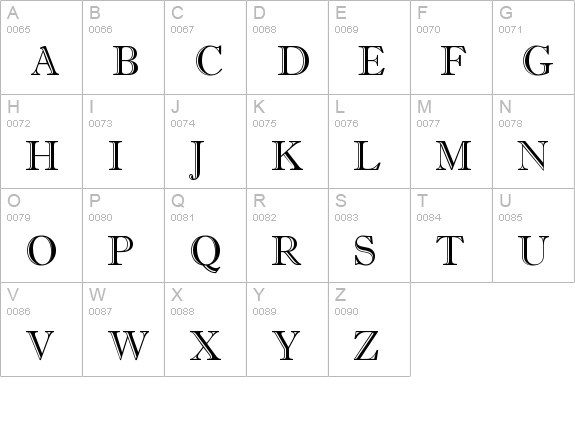
FFX Times Engraved Font Details
FFX Times Engraved font is a classic and elegant typeface that adds a touch of sophistication to any design project. With its intricate details and timeless appeal, this font is perfect for creating stunning headlines, invitations, and logos. The engraved style gives a sense of tradition and craftsmanship, making it suitable for projects that require a touch of vintage charm. What's even better is that FFX Times Engraved font is available for free download at FontsMarket.com. This means you can easily access this beautiful font and use it in your designs without any cost. Whether you're working on a personal project or a professional assignment, FFX Times Engraved font is a versatile choice that will elevate your work to the next level. Download it today and add a touch of elegance to your designs.